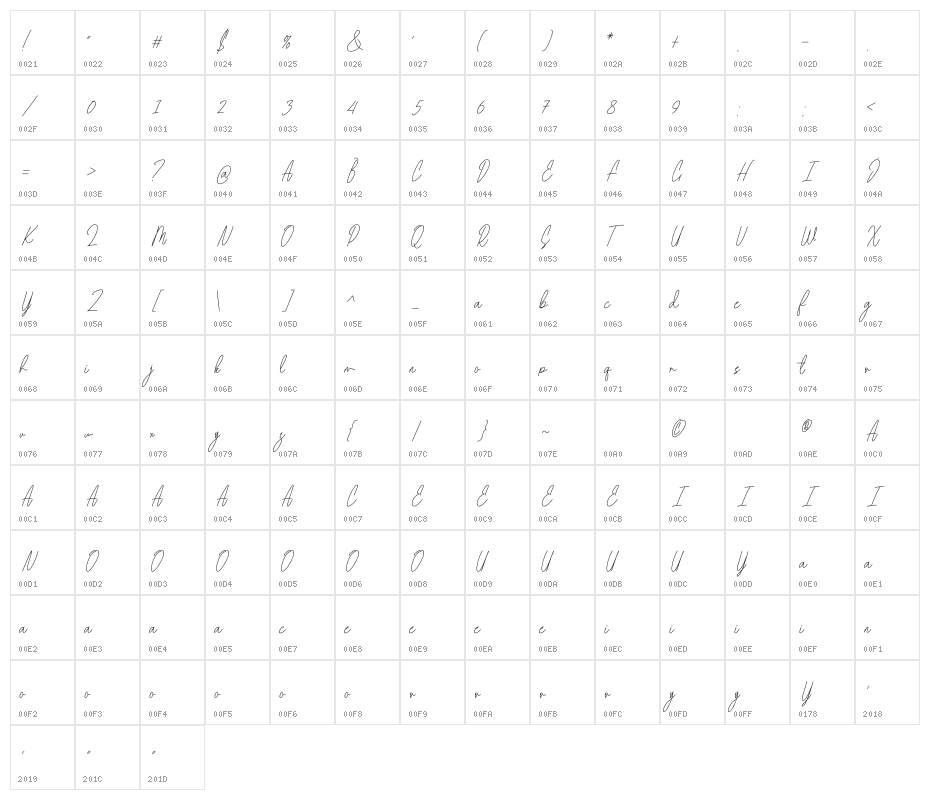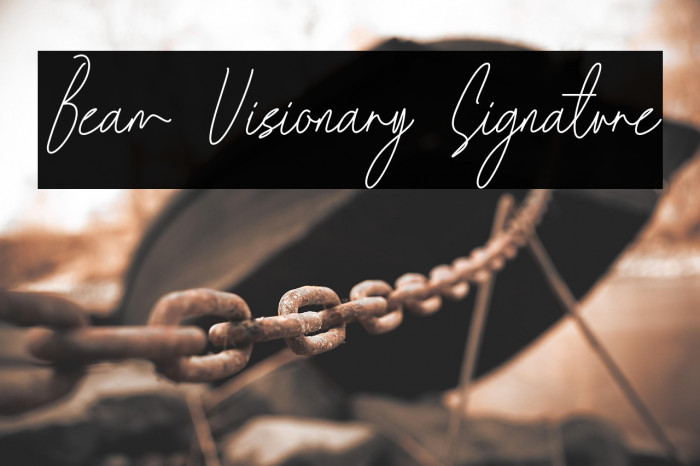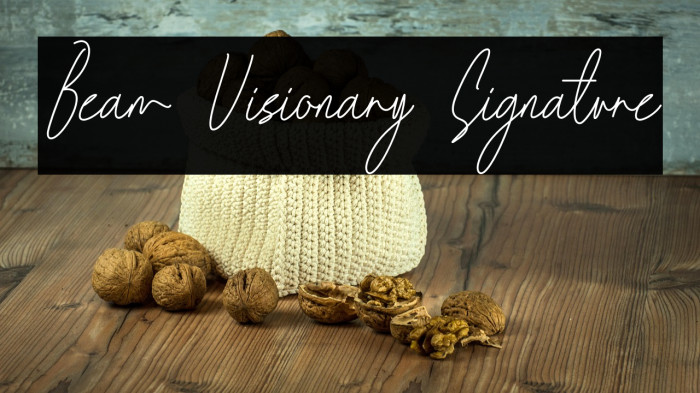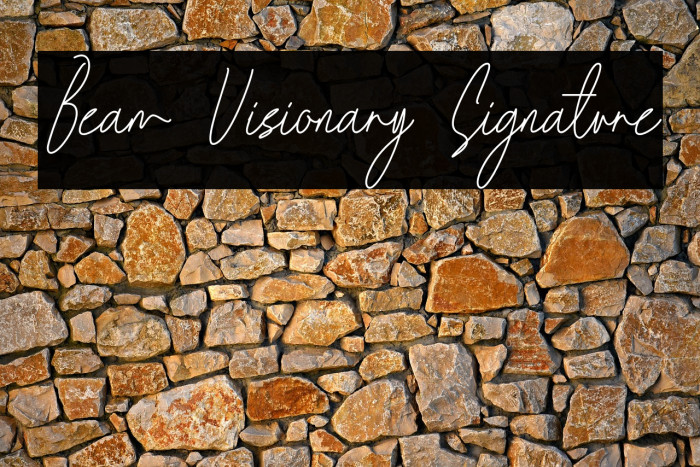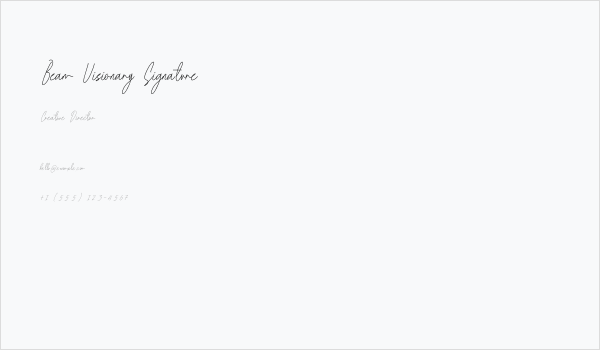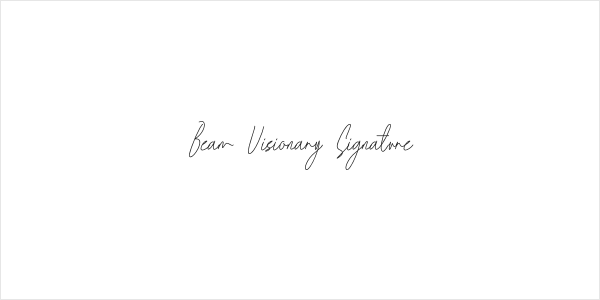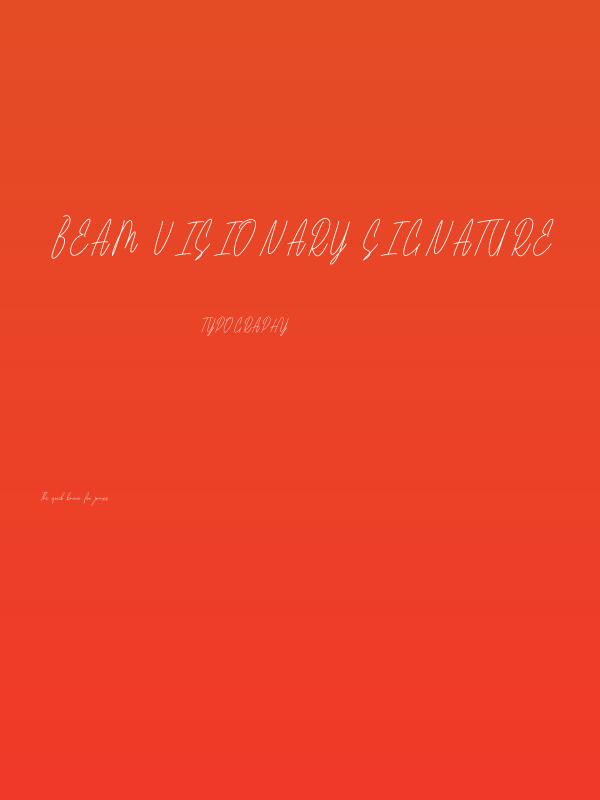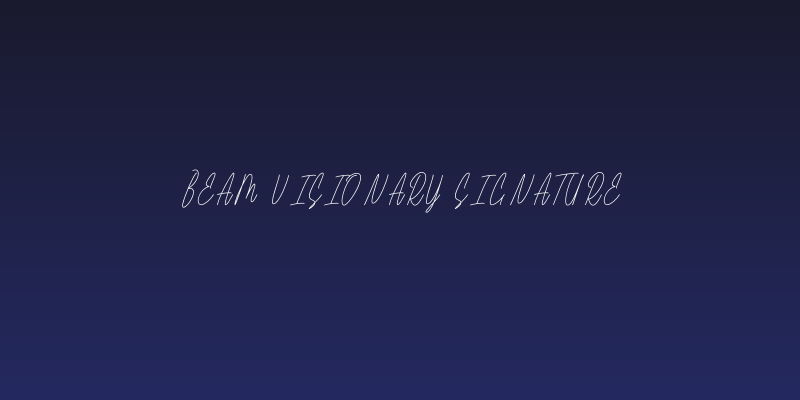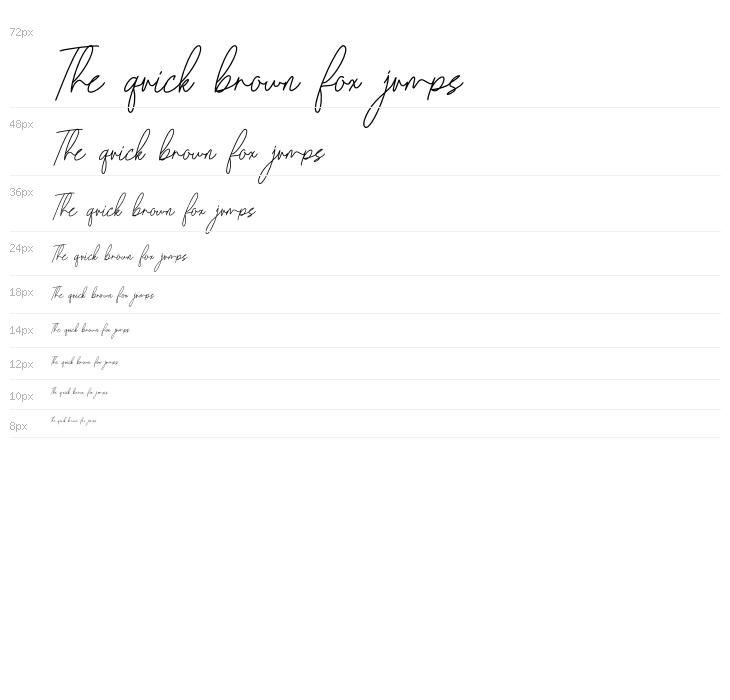
Beam Visionary Signature Font
Beam Visionary Signature Description
A thin, elegant handwritten script with a natural, flowing style and high legibility. The characters are slightly slanted, featuring long ascenders and descenders, and a consistent stroke width throughout.
| Use Case | Logos, Signatures, Invitations, Social media graphics |
| Proposed Projects | Personal branding, signatures, invitations, greeting cards, boutique logos, and social media graphics. |